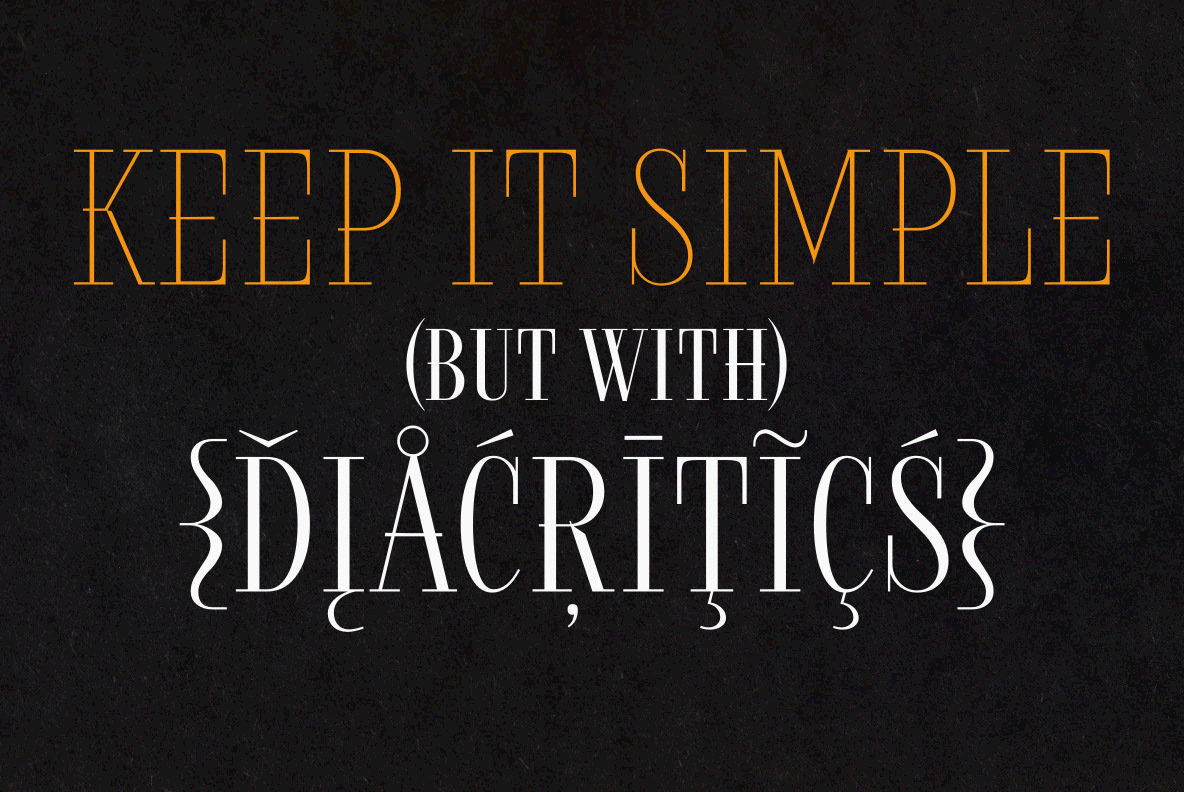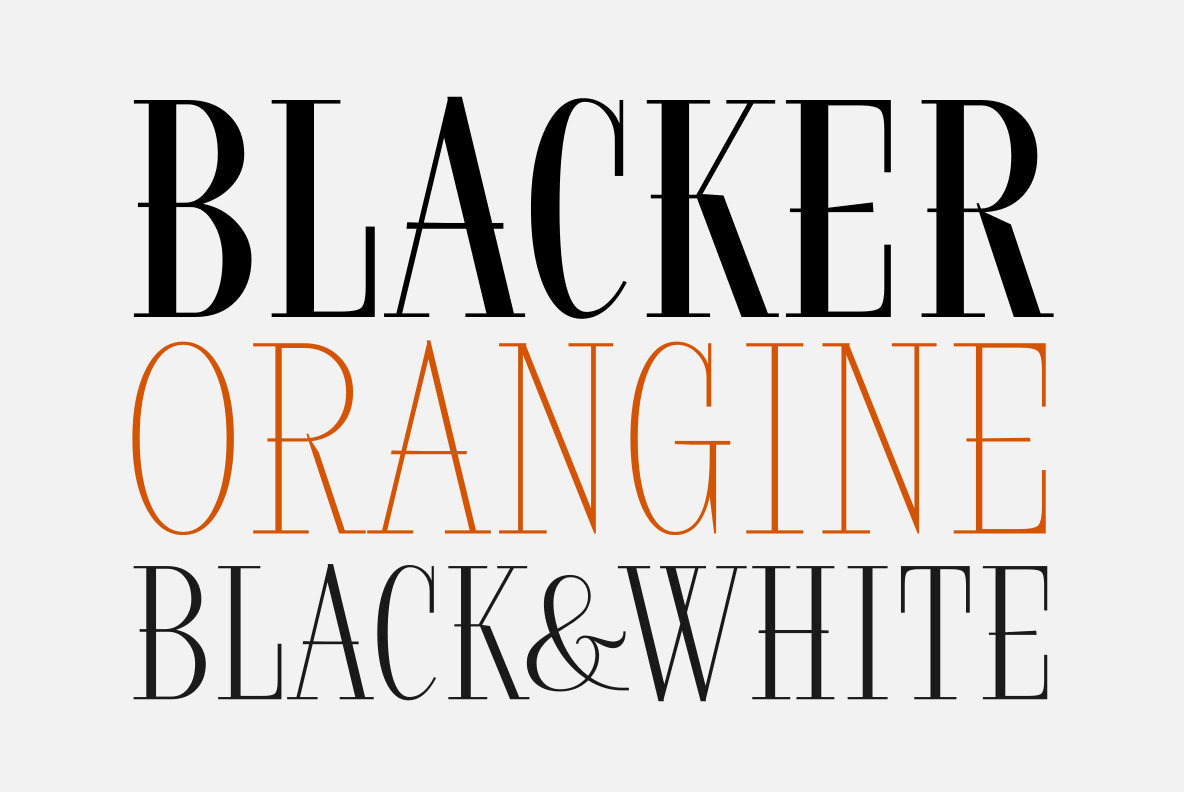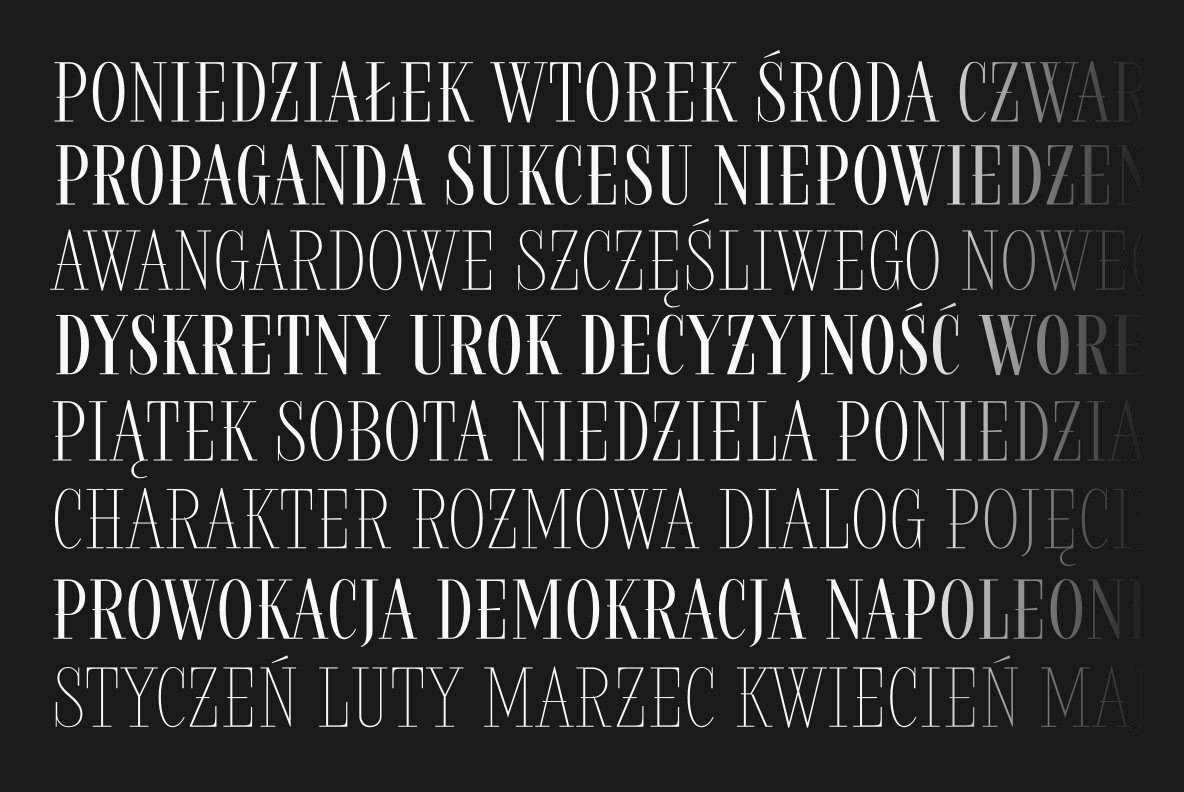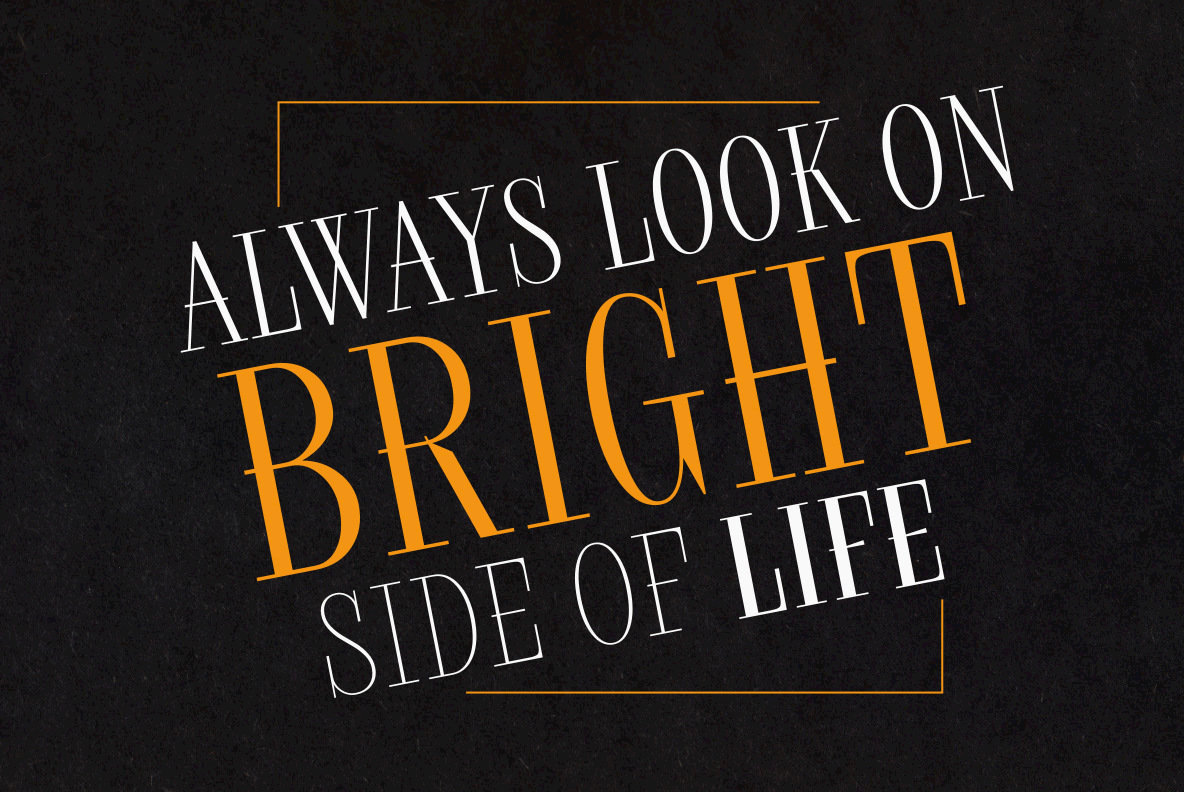
Rostef Font
Rostef is a decorative serif font design, published by Grzegorz Luksza. Each style contains 464 characters, including an extended Latin character set.